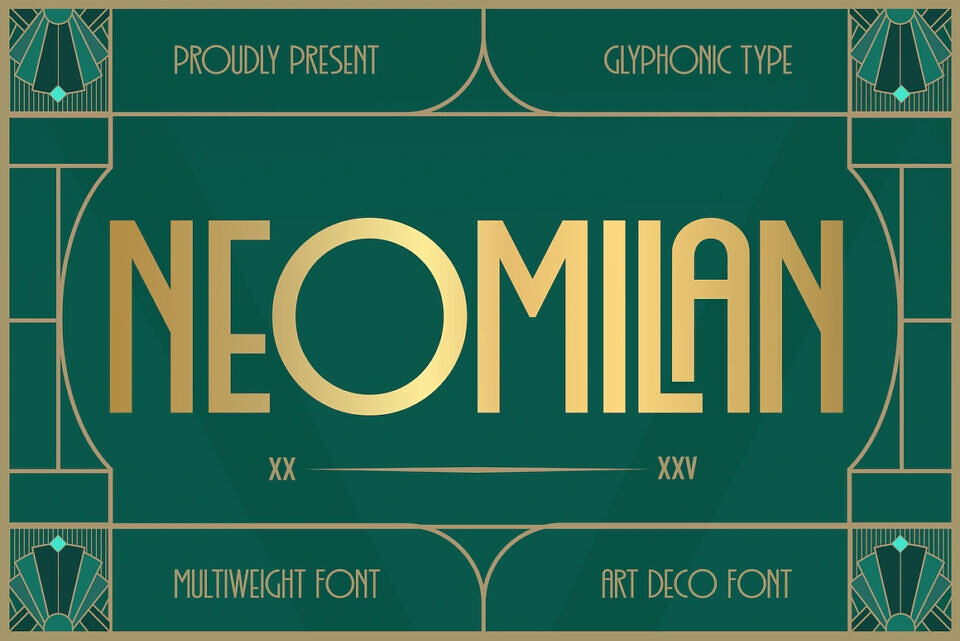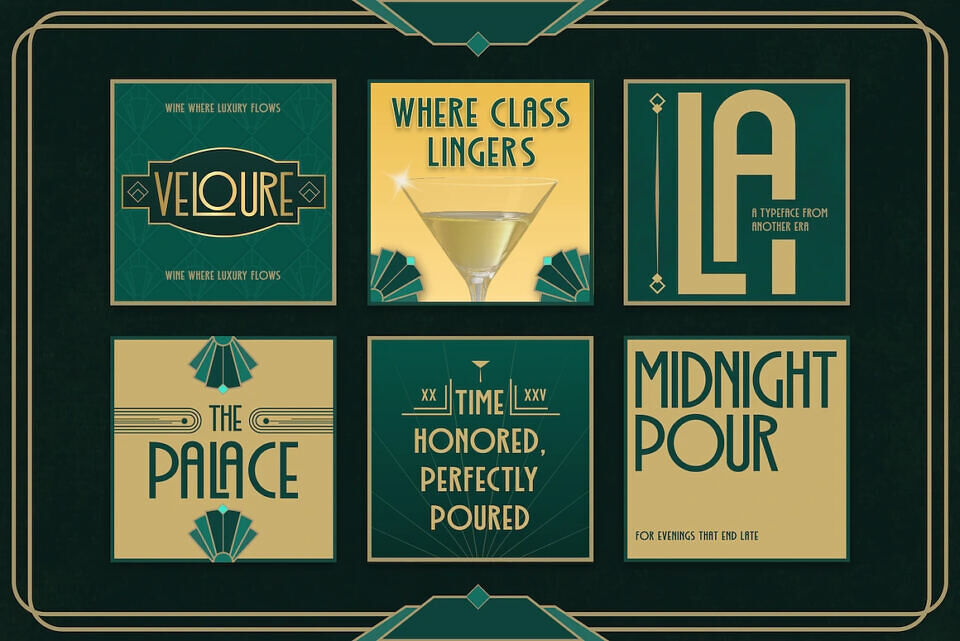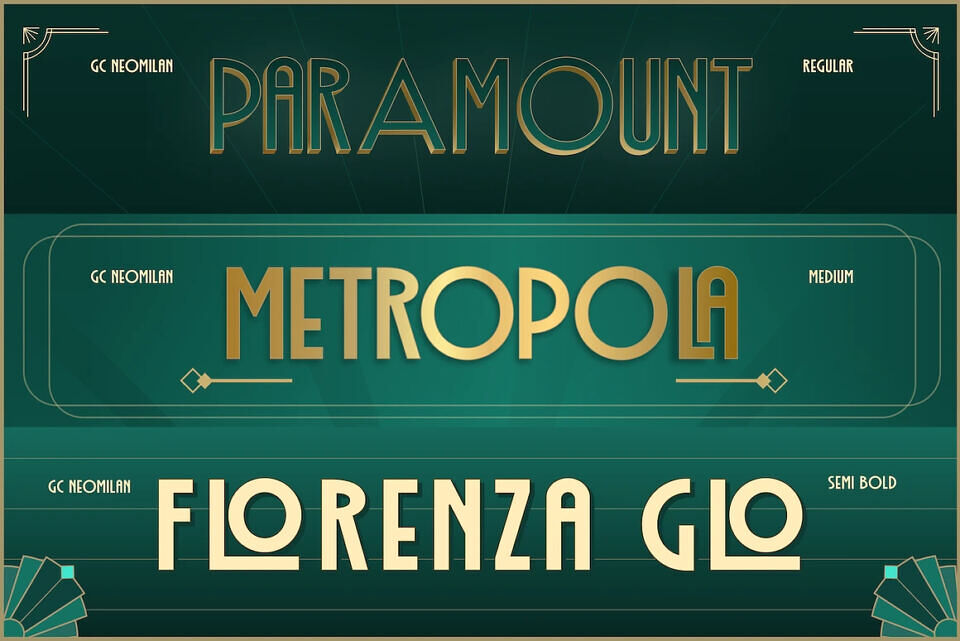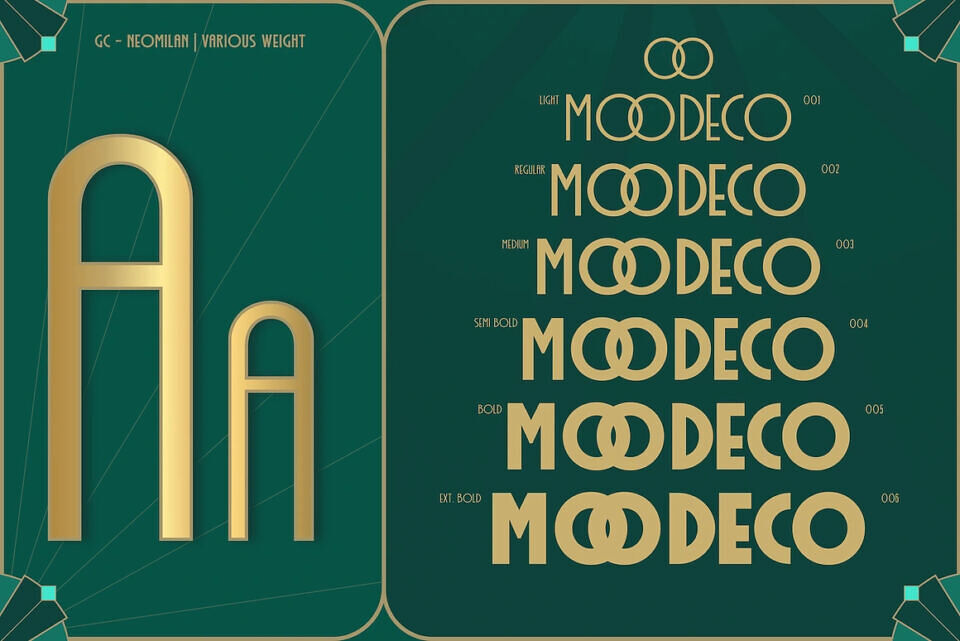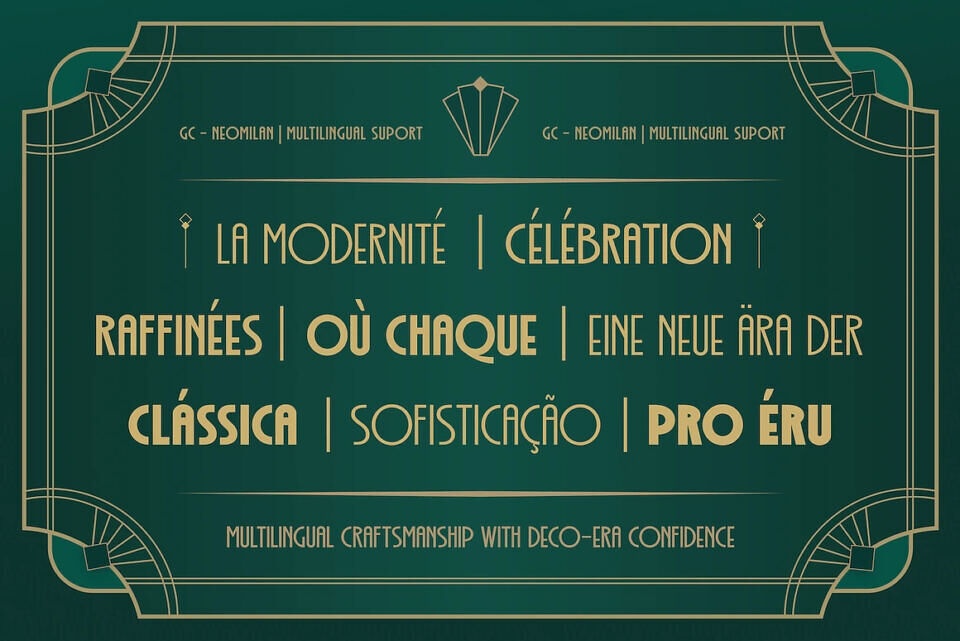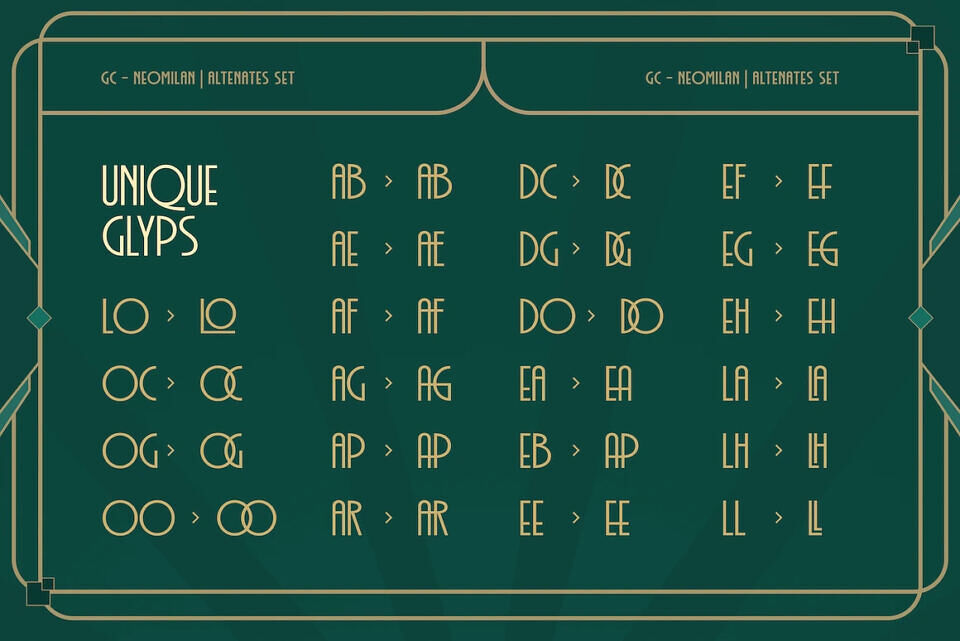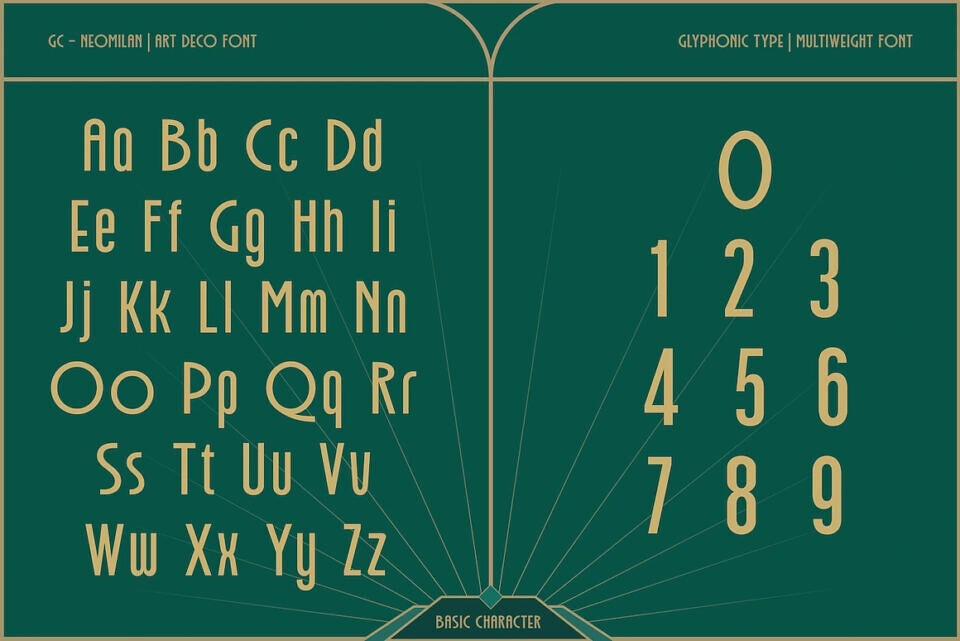
GC Neomilan Font
GC Neomilan is a refined display typeface inspired by the timeless elegance of Art Deco, reinterpreted through a modern lens. Built on strong geometric structures, sharp angles, and balanced proportions, Neomilan delivers a sophisticated and confident visual voice for contemporary design.
Blending classic Deco glamour with clean modern construction, GC Neomilan is designed to stand out in branding, fashion, editorial design, premium brands, posters, packaging, and luxury-focused visual identities. Its distinctive letterforms create striking headlines while maintaining clarity and harmony across compositions.